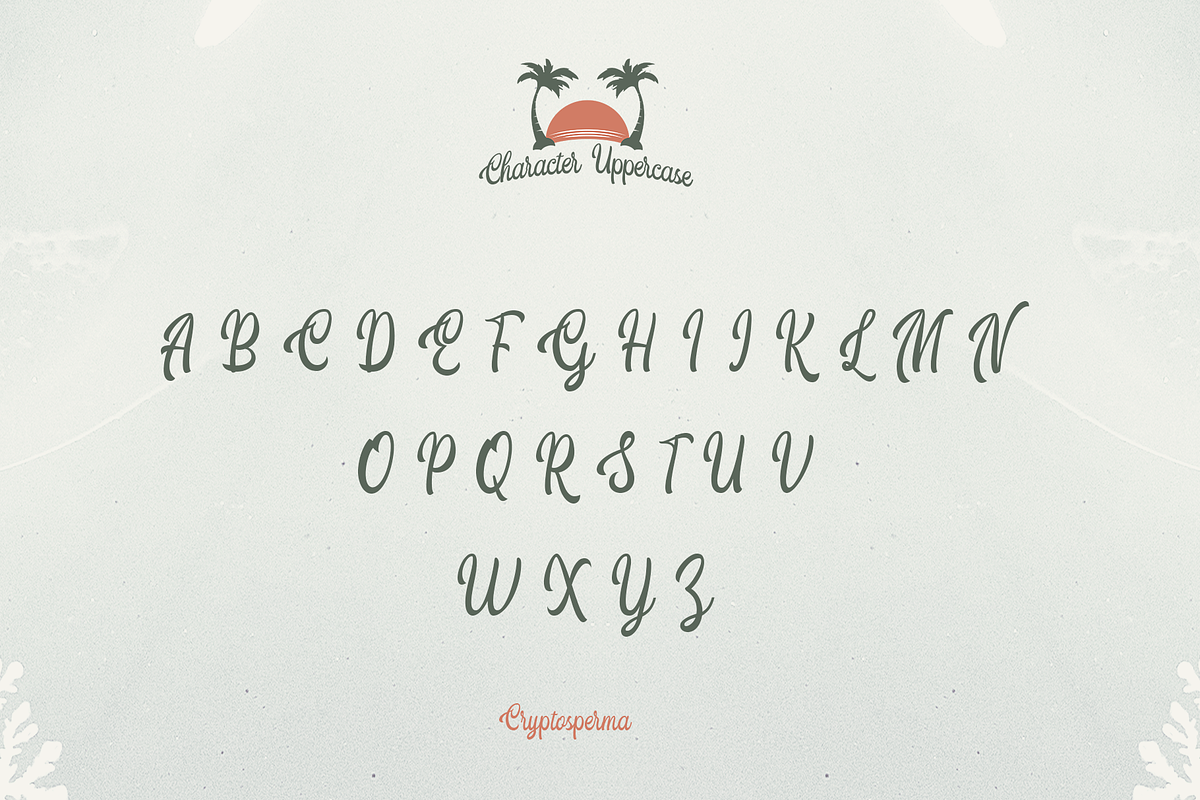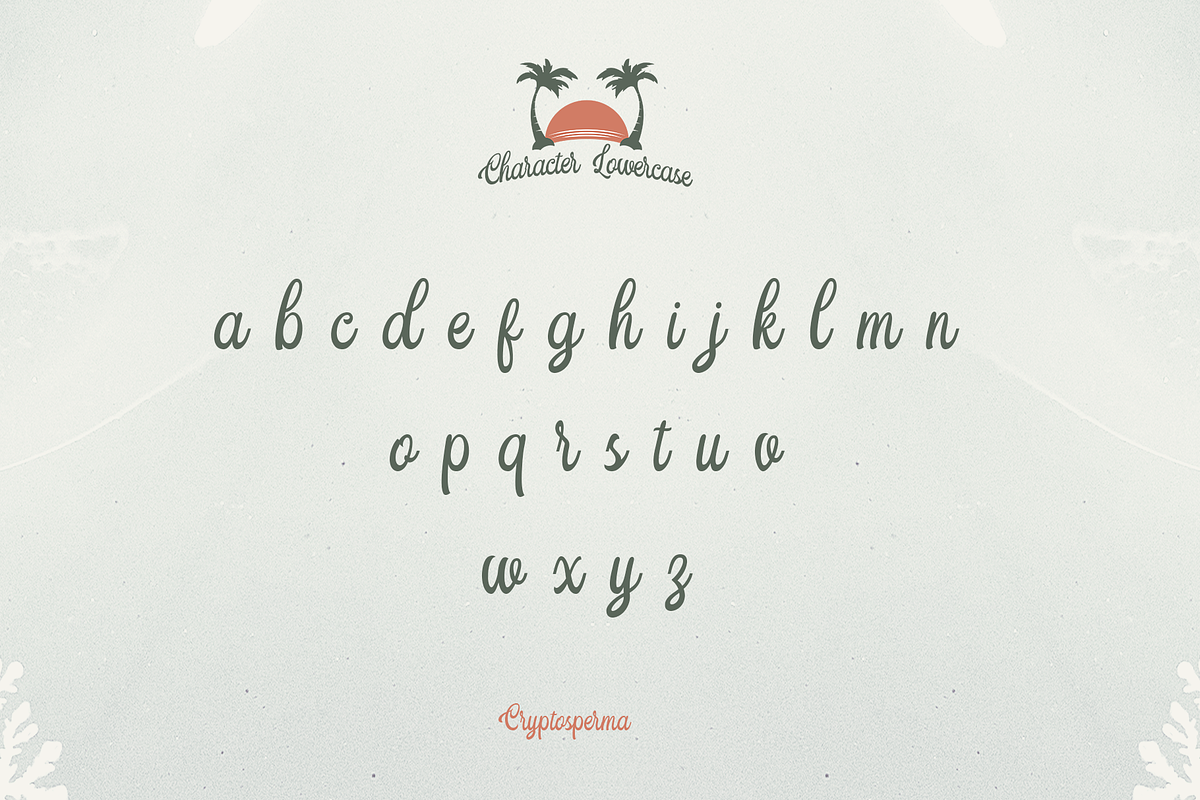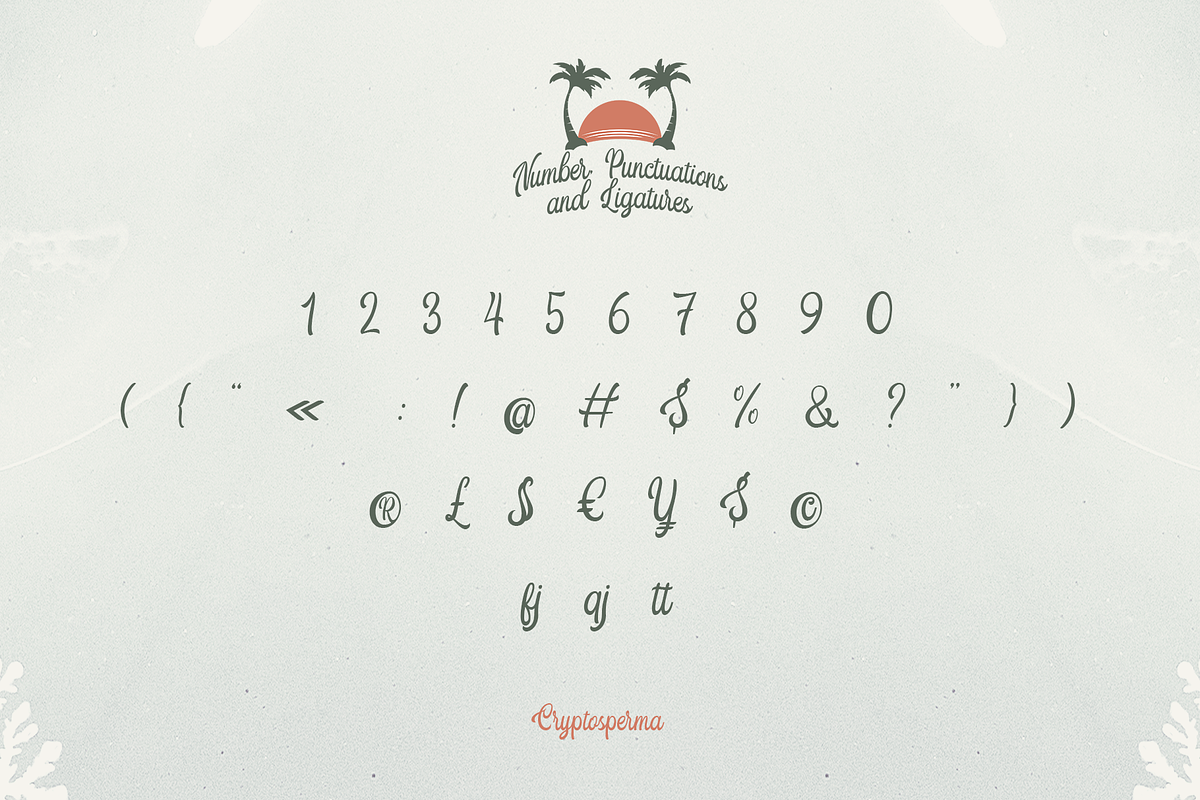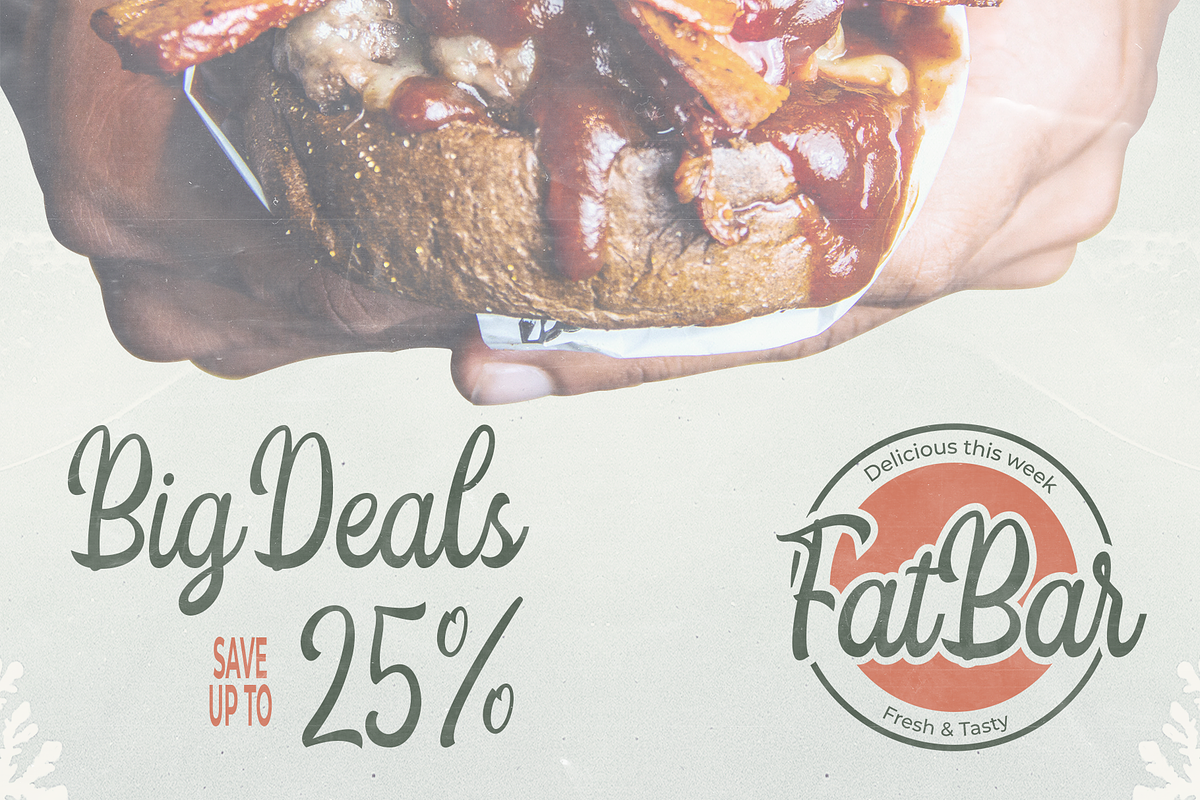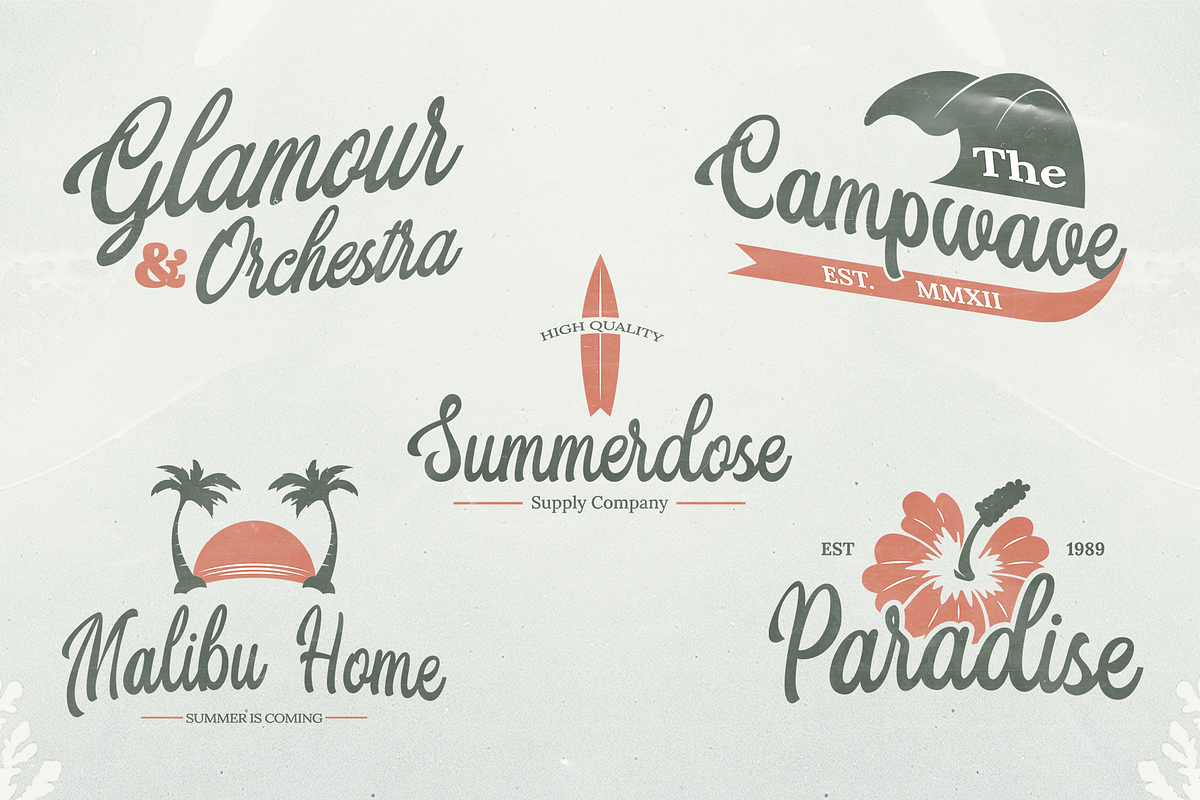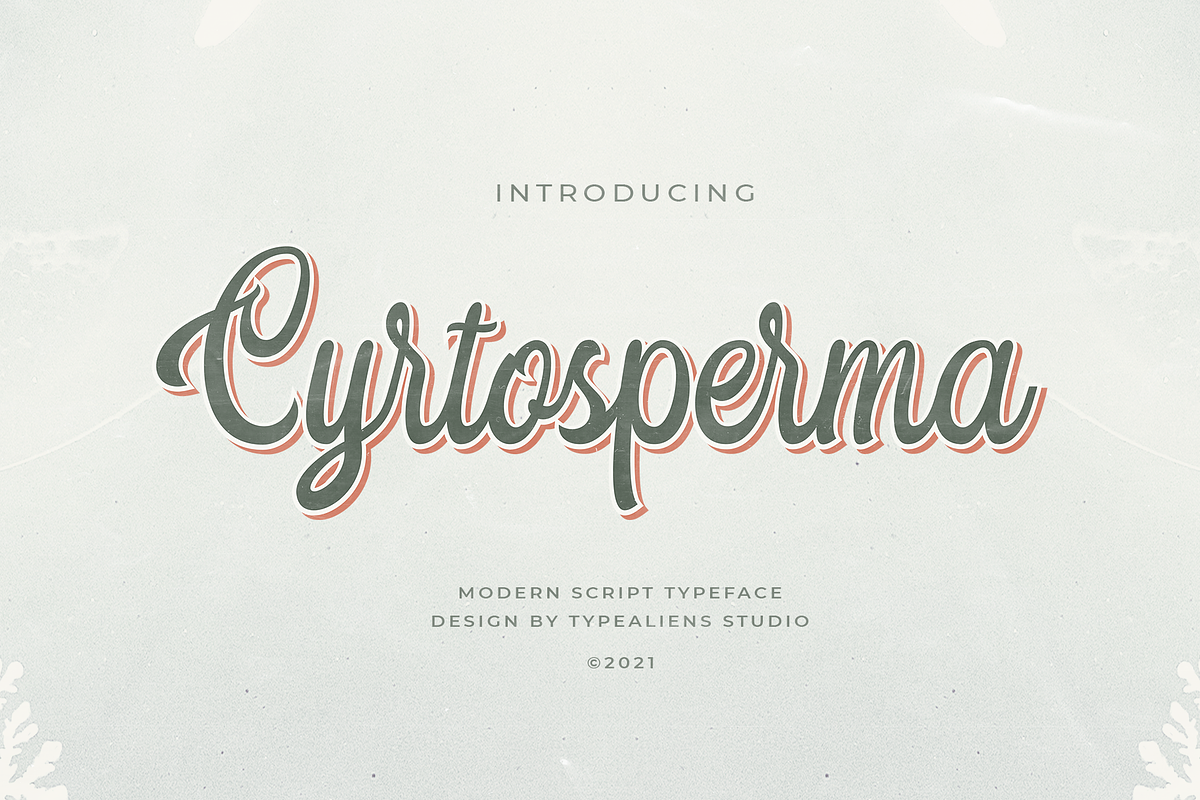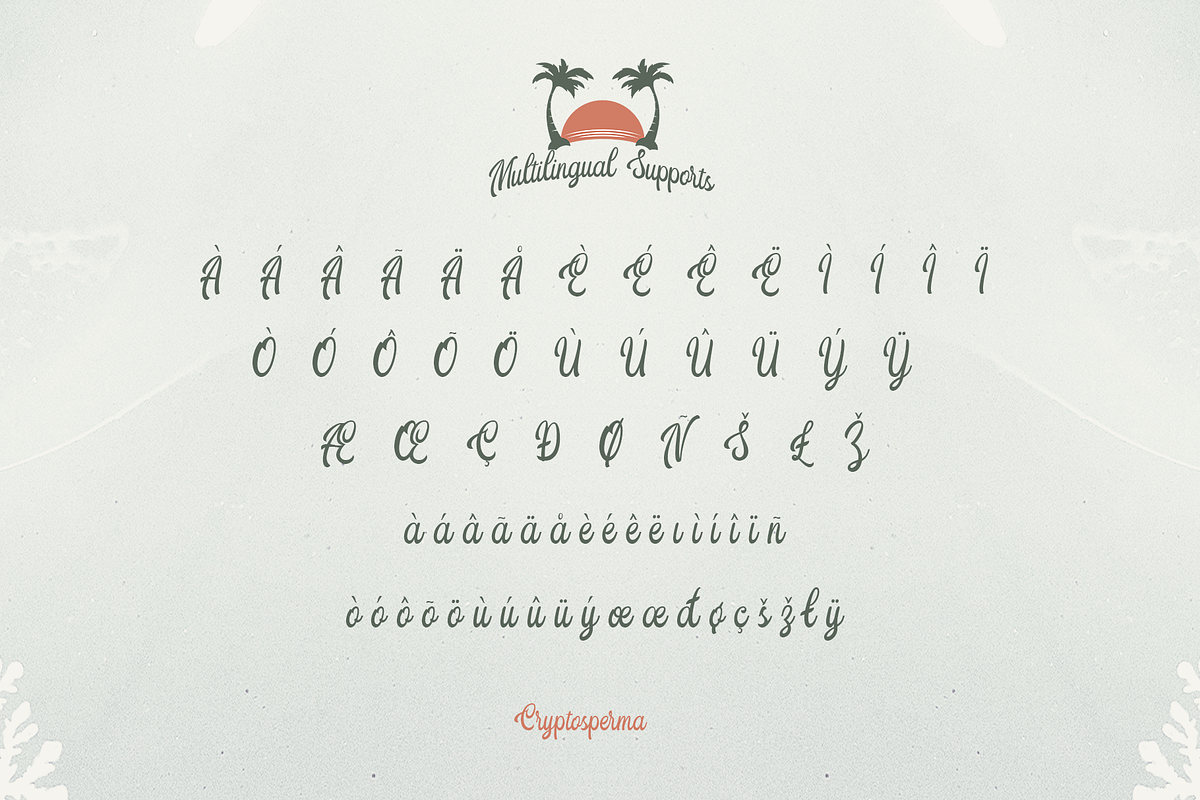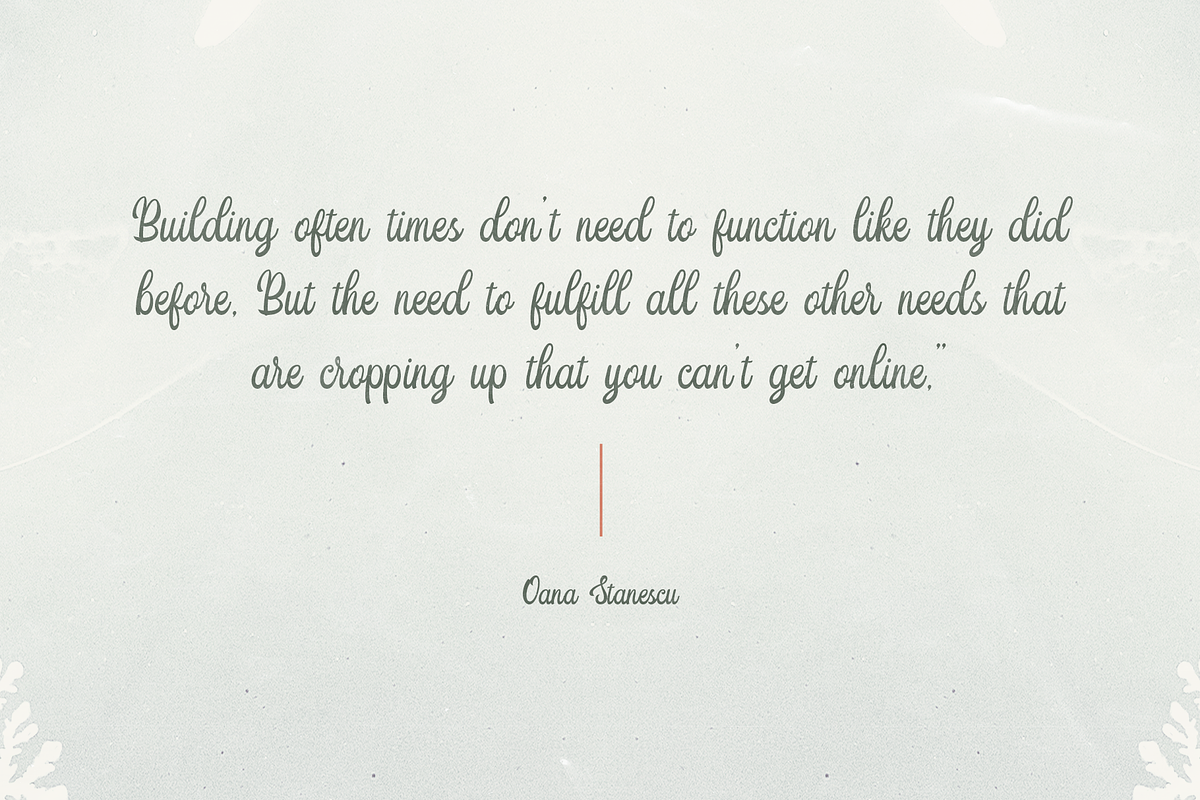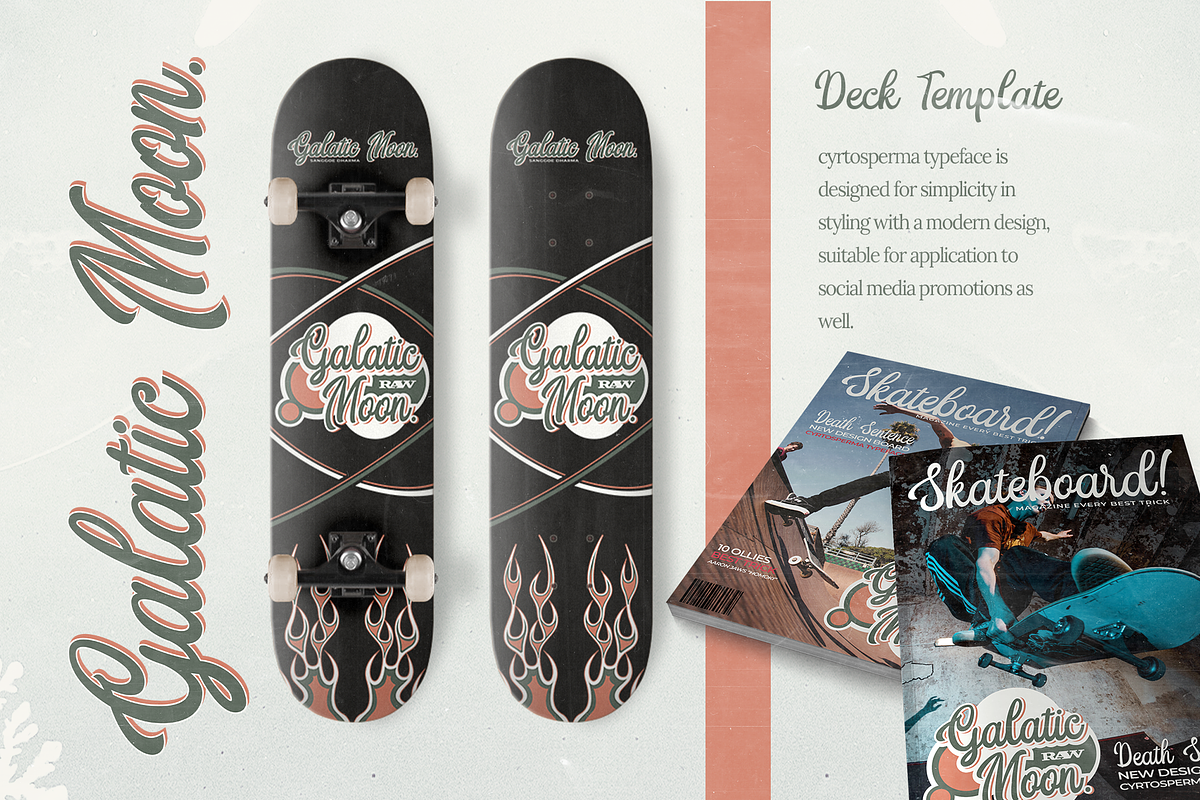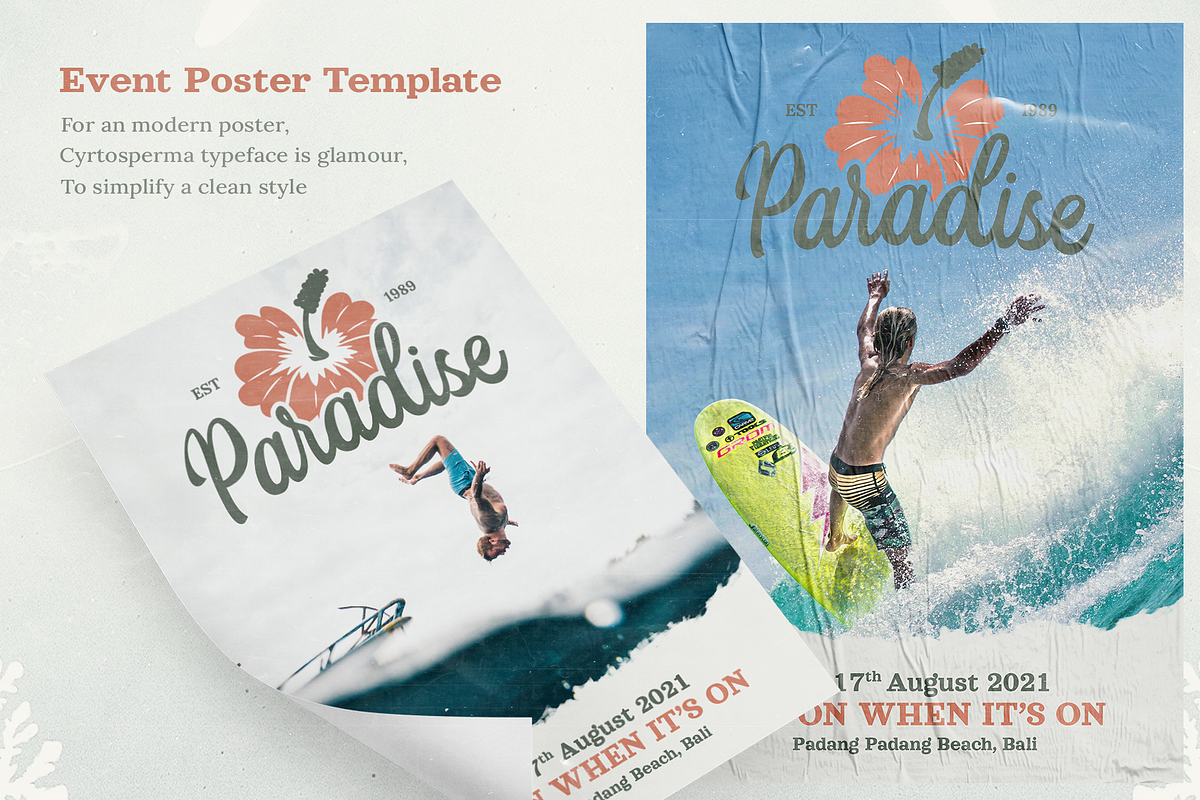
Cyrtosperma
CYRTOSPERMA
Cyrtosperma is a beautiful and modern script font, perfect for social media, logotype, branding, logo badges etc. With a unique and modern style.